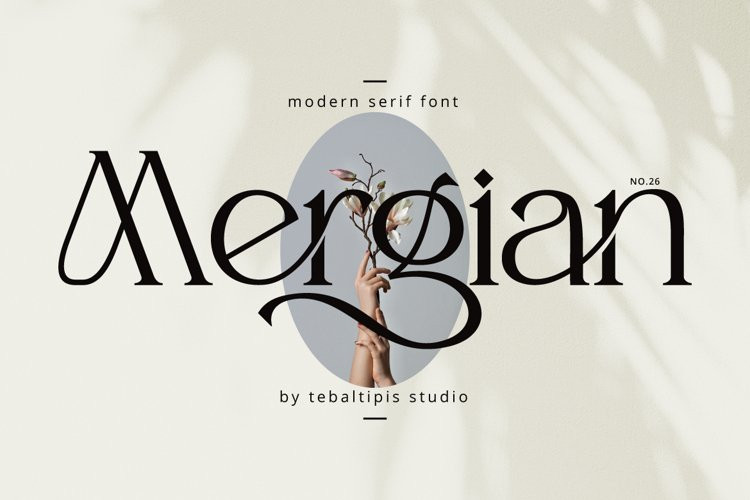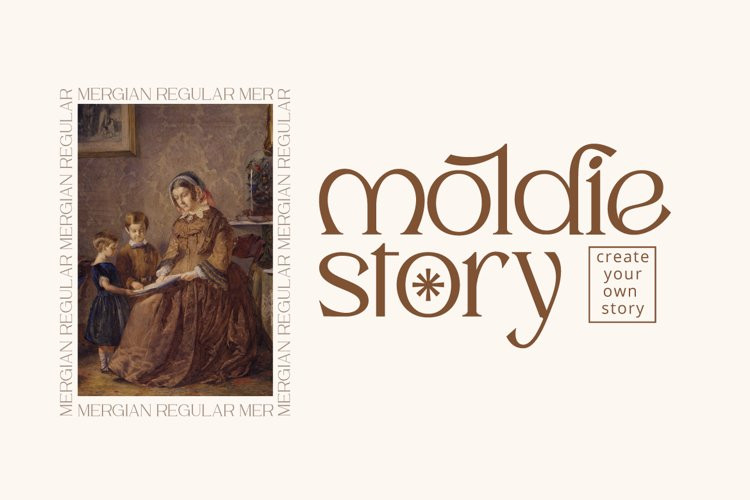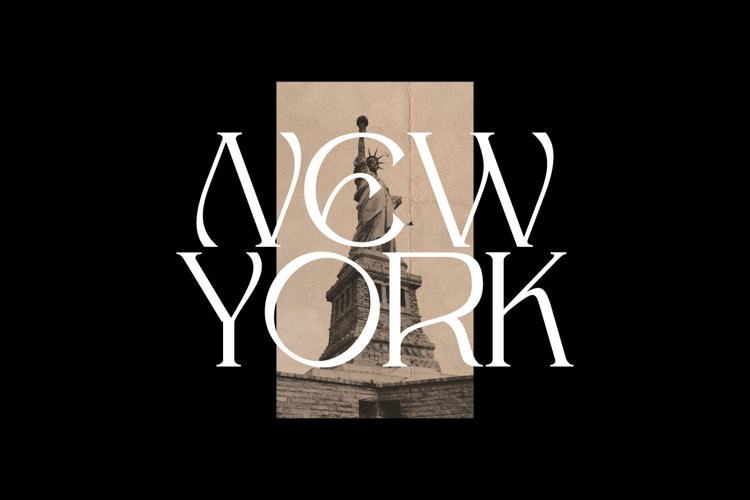
Mergian Font
Mergian FontMergian – Modern Ligature Font by Tebaltipisstudio introducing our new “Mergian” Modern Ligature with Elegant Style this is perfect for branding, logos, invitation, masterheads and more.